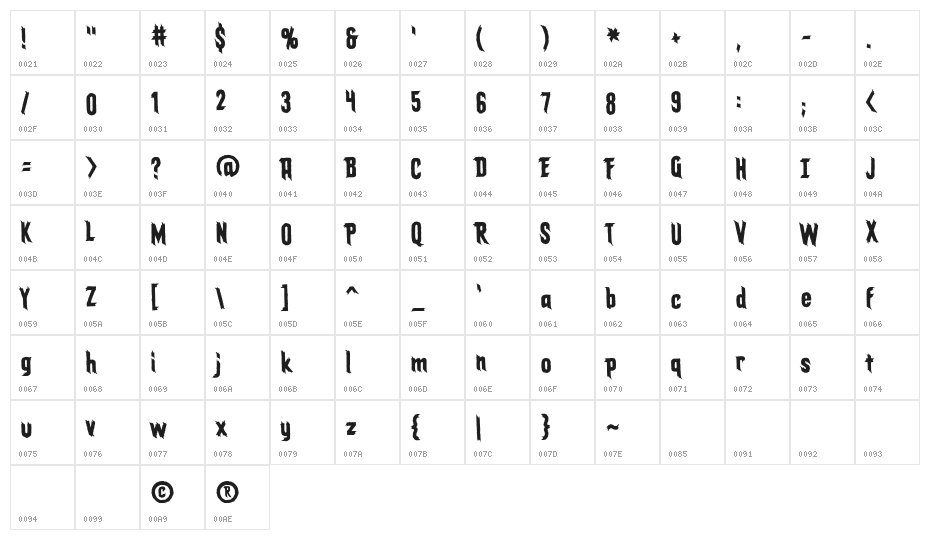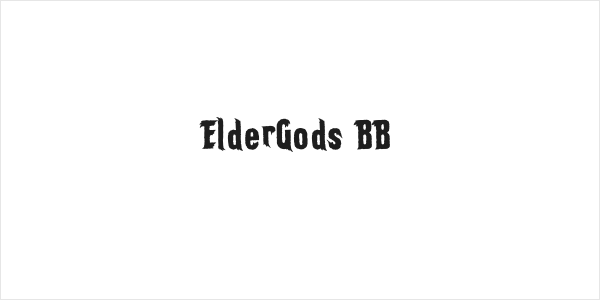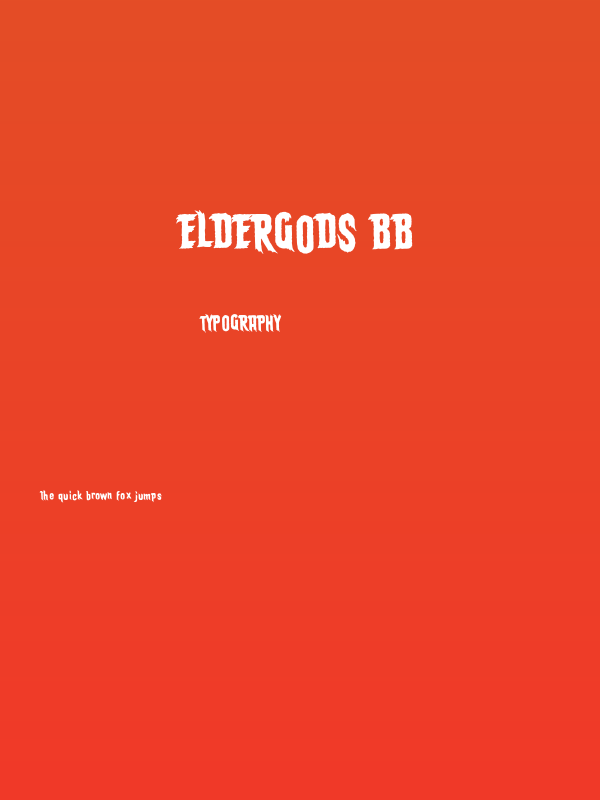
ElderGods BB Font
ElderGods BB Description
This font features a bold, jagged style reminiscent of horror or fantasy themes. The characters have an irregular, distressed appearance, with sharp edges and uneven strokes that give a sense of movement and intensity. The uppercase and lowercase letters maintain a consistent style, with the uppercase being slightly more pronounced. Numbers and special characters follow the same aesthetic, ensuring a cohesive look across all text. This font is ideal for creating dramatic and eye-catching designs that require a touch of the eerie or supernatural.
Proposed ProjectsIdeal for horror movie posters, Halloween event flyers, video game titles, and fantasy book covers.